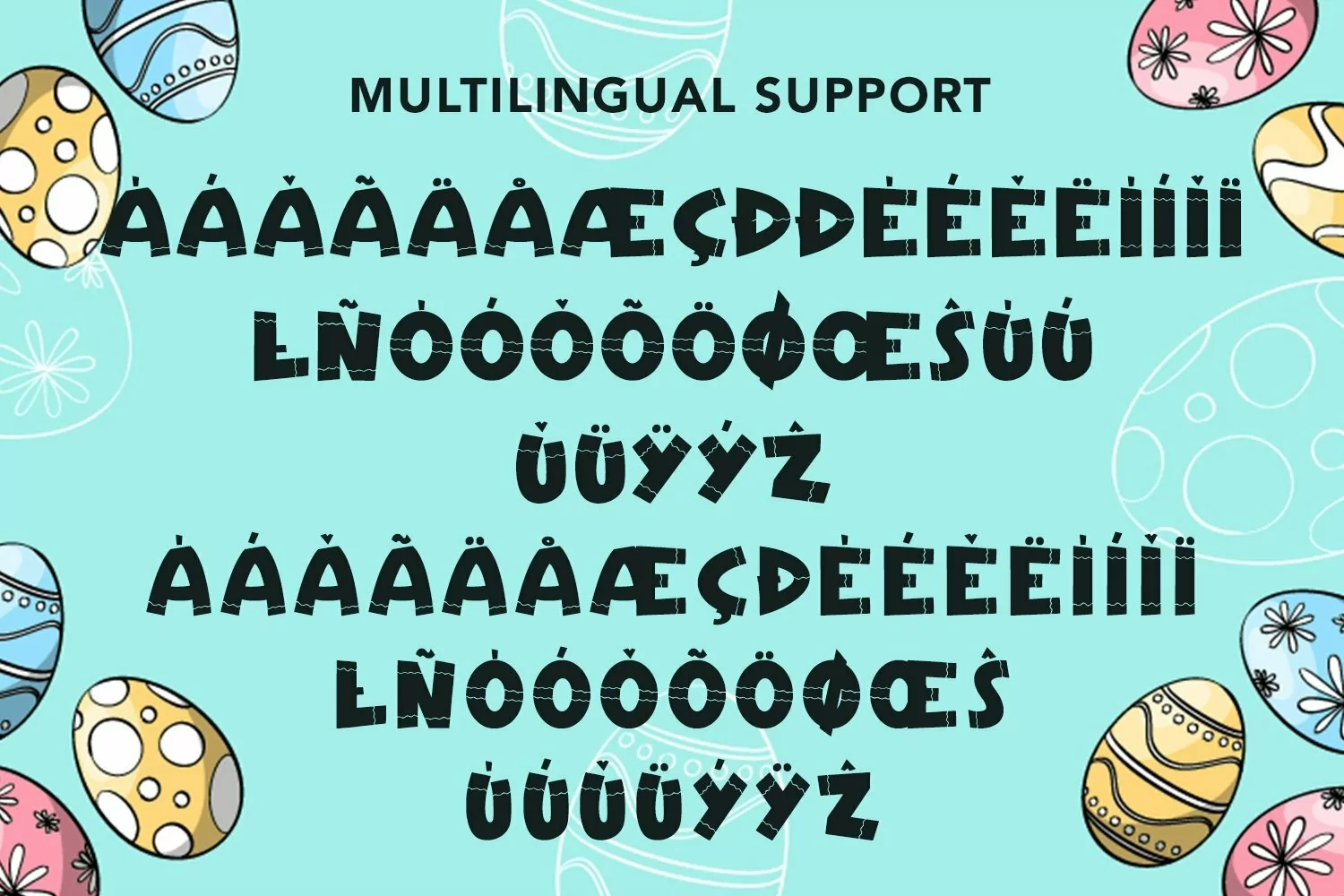
Easter Party - Cute & Playful Easter that contain lowercase, uppercase, symbol, and also support multi language. There’s a lot ligatures in this font. This Font also comes with ligatures, alternates and many more. this font suitable for fashion, branding, catalog and other design what you want.